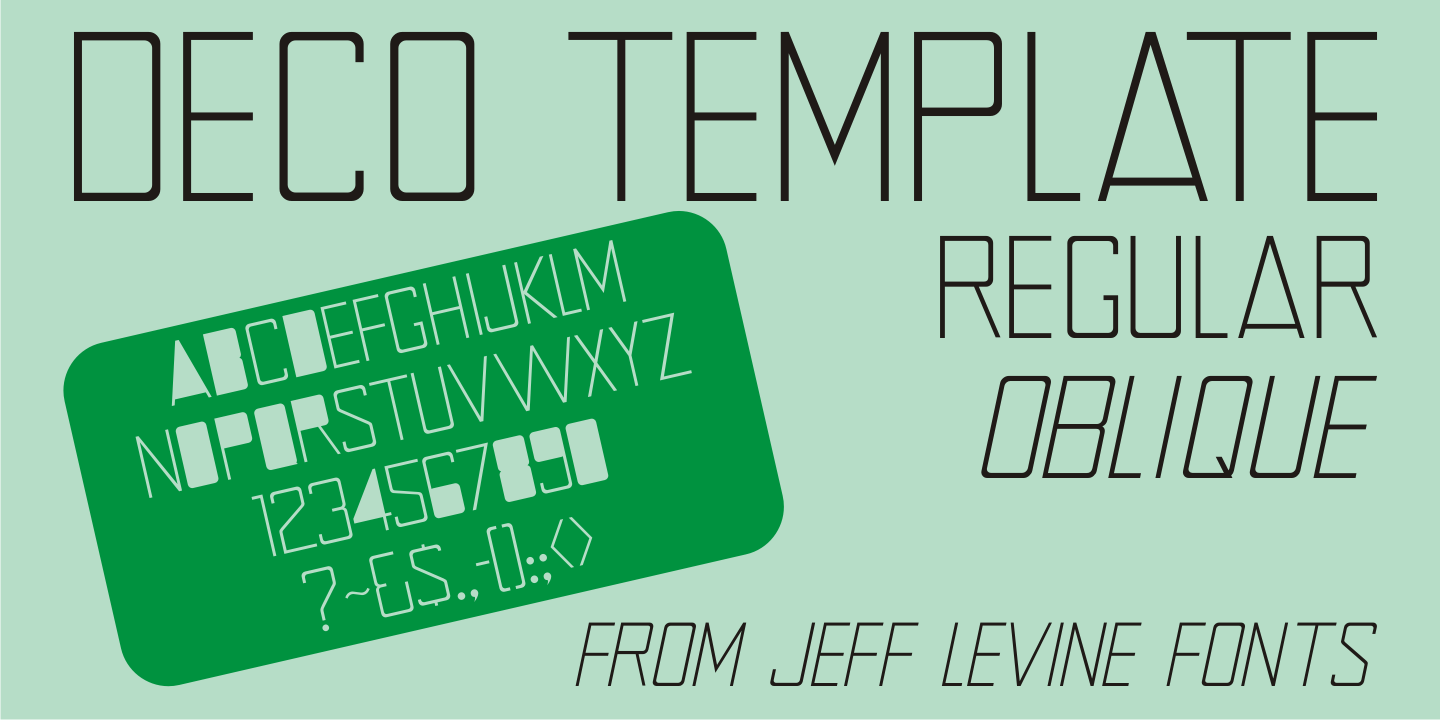
Deco Template
Deco Template JNL is a font made from the inline portion of Stationer JNL, which itself was based on the hand lettered 1938 sheet music title for the official Coast Guard Marching Song 'Semper Paratus” (Always Ready)”.
Resembling a drafting template with a square, modular look, this type design is available in both regular and oblique versions.